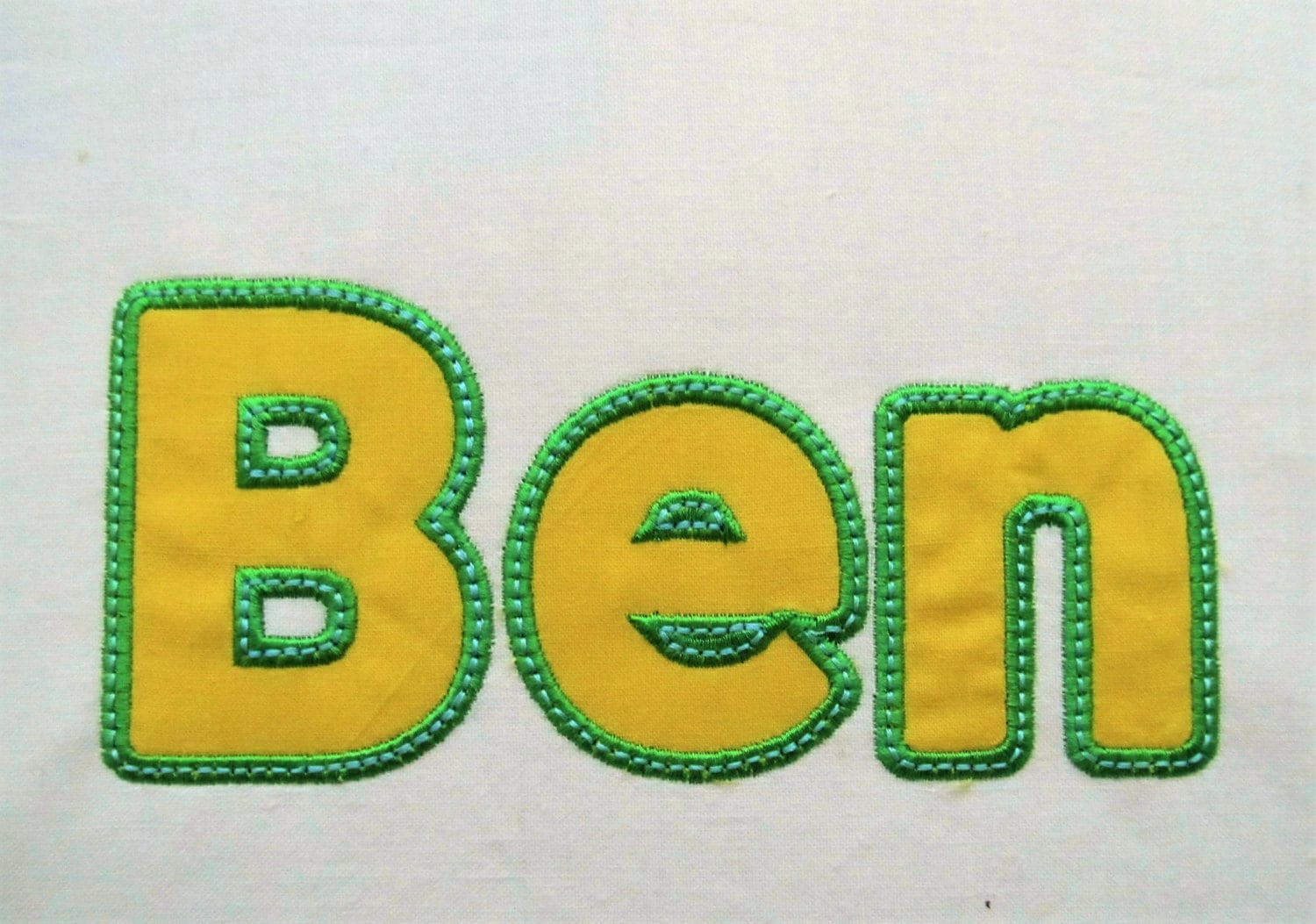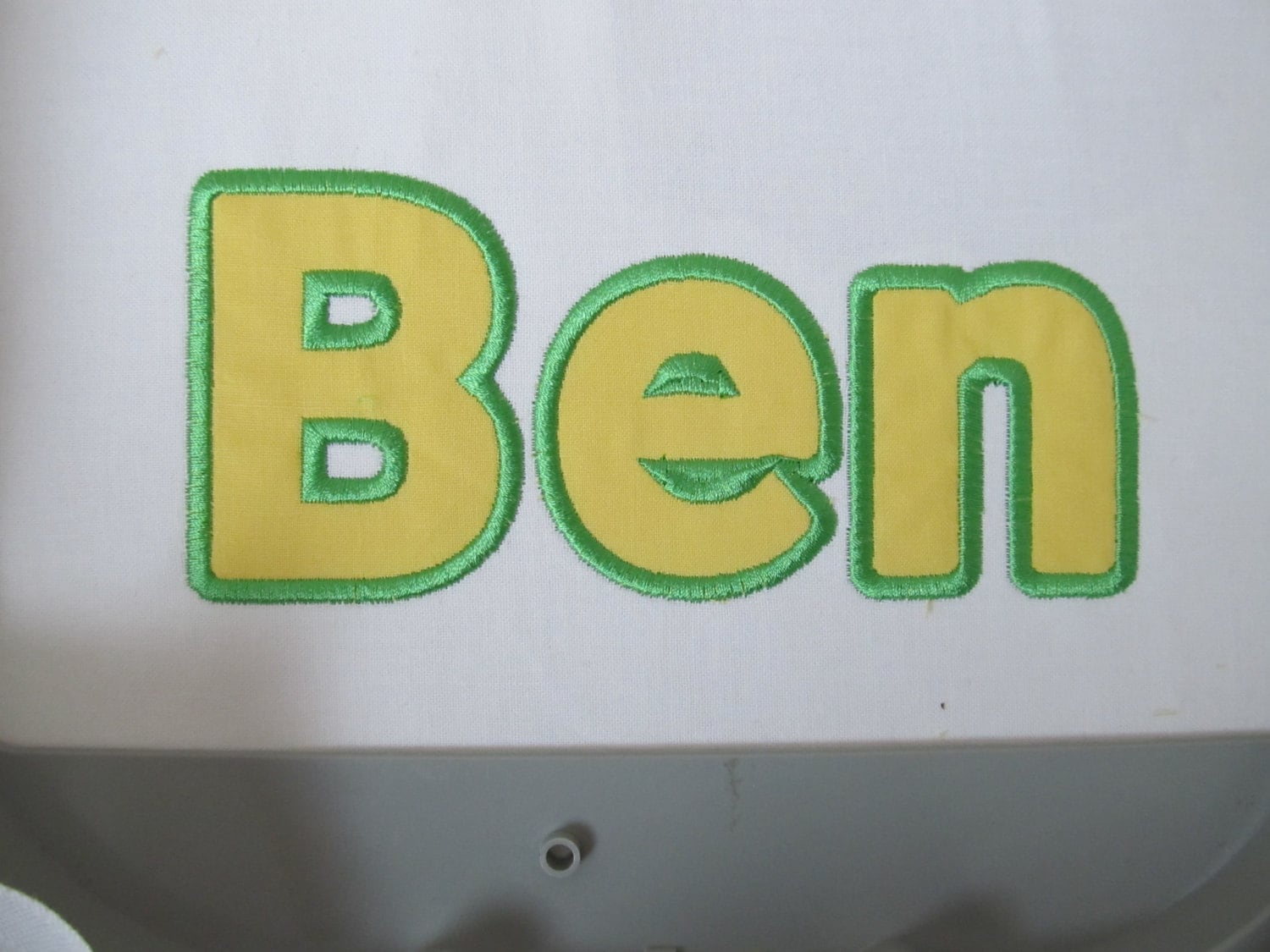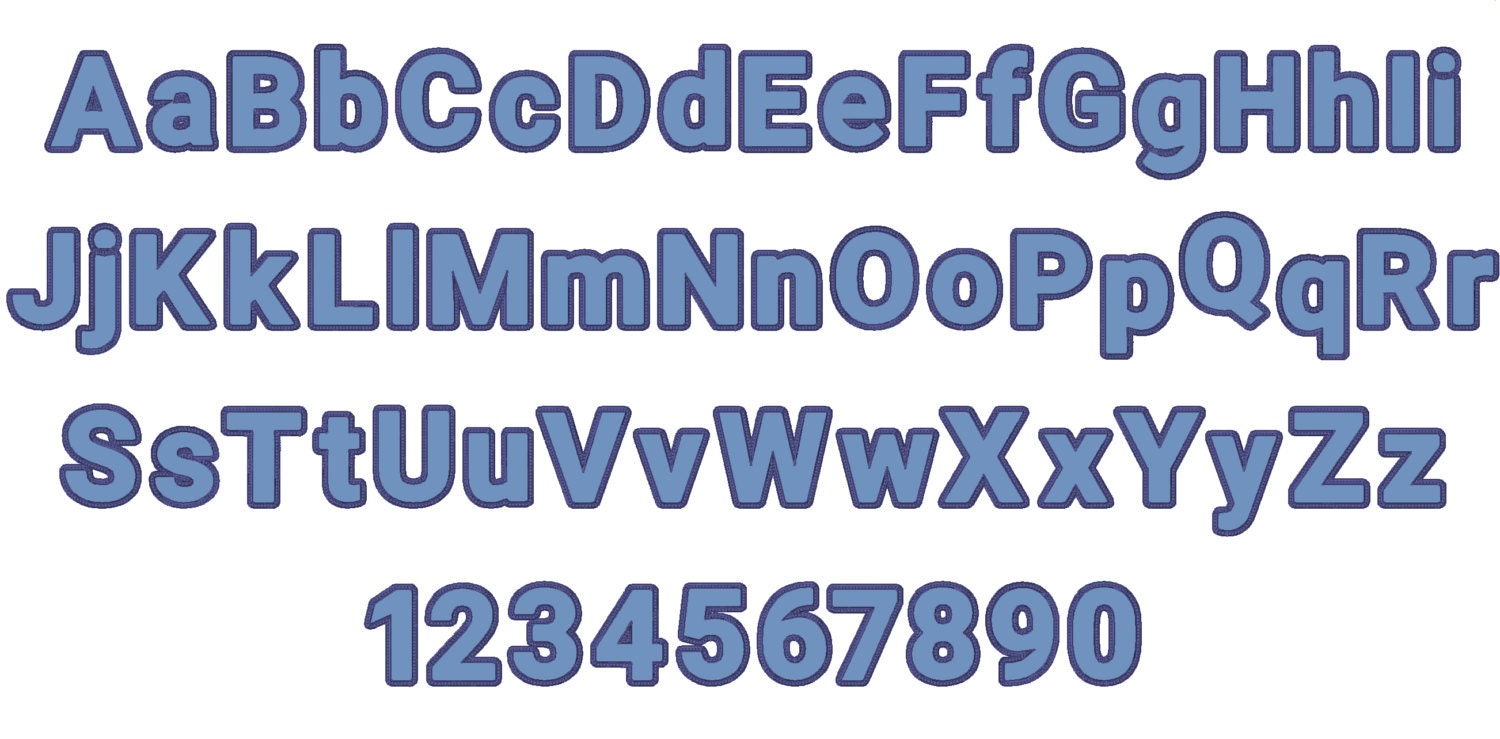
Applique font with nice wide satin stitch outline.
The top bean stitching may be left out.
Stitches out nicely, however I do have one issue. It only lets me do one letter at a time and it only has 2 steps instead of three, but since they are individual letters it's not too much of a problem.
Stitched our great! very pleased